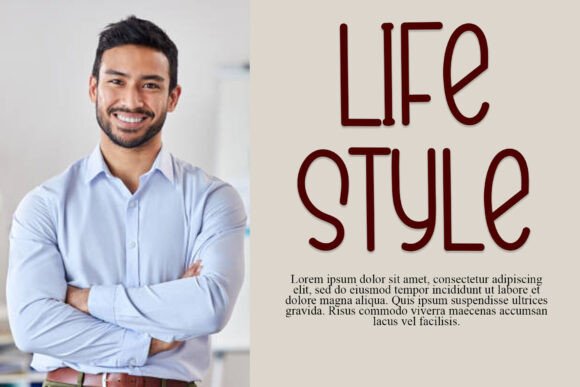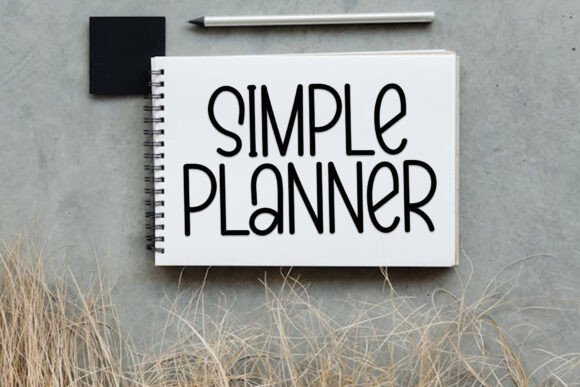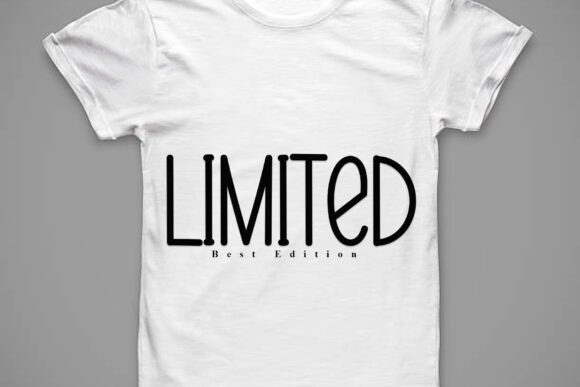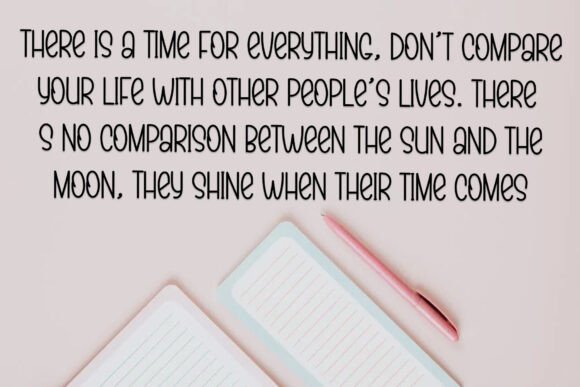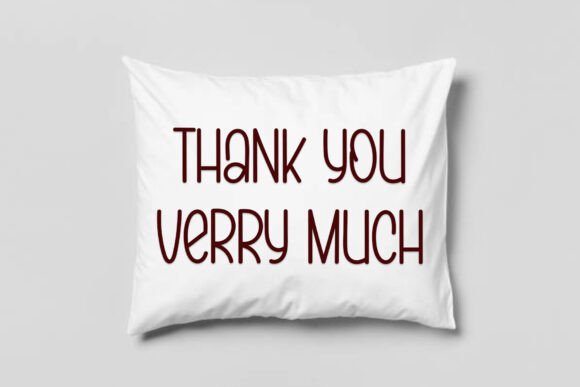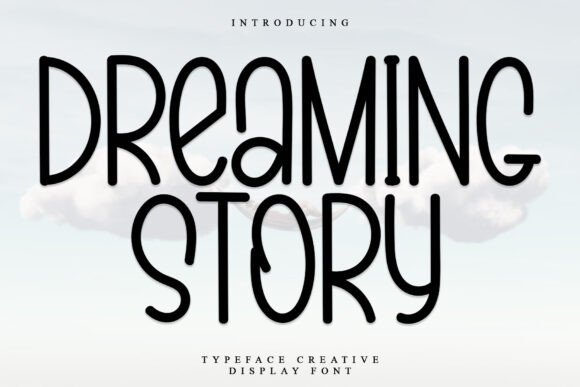
Dreaming Story Font: The Sweet and Friendly Handwritten Font for Your Creative Projects
Are you a designer, crafter, or DIY enthusiast looking for a font that can add a touch of sweetness and friendliness to your creative projects? Look no further than the Dreaming Story Font! This beautiful handwritten font is perfect for a wide range of designs, from invitations and greeting cards to branding and packaging.
What is Dreaming Story Font?
Dreaming Story Font is a sweet and friendly handwritten font that is designed to bring a personal touch to your designs. Its natural and unique style makes it incredibly fitting to a large pool of designs, and the only limit is your imagination! Whether you’re creating a whimsical children’s book, a beautiful wedding invitation, or a fun and playful craft project, this font is sure to delight.
Characteristics of Dreaming Story Font
So, what makes Dreaming Story Font so special? Here are just a few of its key characteristics:
- Handwritten style: Dreaming Story Font has a beautiful, handwritten style that is perfect for adding a personal touch to your designs.
- Sweet and friendly: This font has a sweet and friendly feel that is sure to appeal to a wide range of audiences.
- Natural and unique: The natural and unique style of Dreaming Story Font makes it incredibly versatile and fitting for a large pool of designs.
- Easy to read: Despite its handwritten style, Dreaming Story Font is easy to read and understand, making it perfect for body text and other applications where legibility is important.
Uses for Dreaming Story Font
Dreaming Story Font is a versatile font that can be used for a wide range of creative projects, including:
- Invitations and greeting cards: Add a personal touch to your invitations and greeting cards with this beautiful handwritten font.
- Branding and packaging: Use Dreaming Story Font to create unique and eye-catching branding and packaging for your products.
- Crafting and DIY projects: This font is perfect for crafters and DIY enthusiasts who want to add a personal touch to their projects, from scrapbooking to knitting.
- Children’s books and educational materials: The sweet and friendly style of Dreaming Story Font makes it perfect for children’s books and educational materials.
Tips for Using Dreaming Story Font
Here are a few tips for using Dreaming Story Font in your creative projects:
- Pair it with other fonts: Experiment with pairing Dreaming Story Font with other fonts to create a unique and eye-catching look.
- Use it for headings and titles: This font is perfect for headings and titles, where its sweet and friendly style can really shine.
- Experiment with colors and textures: Don’t be afraid to experiment with different colors and textures to add depth and interest to your designs.
In conclusion, Dreaming Story Font is a beautiful and versatile handwritten font that is perfect for a wide range of creative projects. Its sweet and friendly style, natural and unique characteristics, and ease of use make it a must-have for designers, crafters, and DIY enthusiasts. Whether you’re creating invitations, branding, or craft projects, this font is sure to delight. So why wait? Download Dreaming Story Font today and start bringing your creative projects to life!